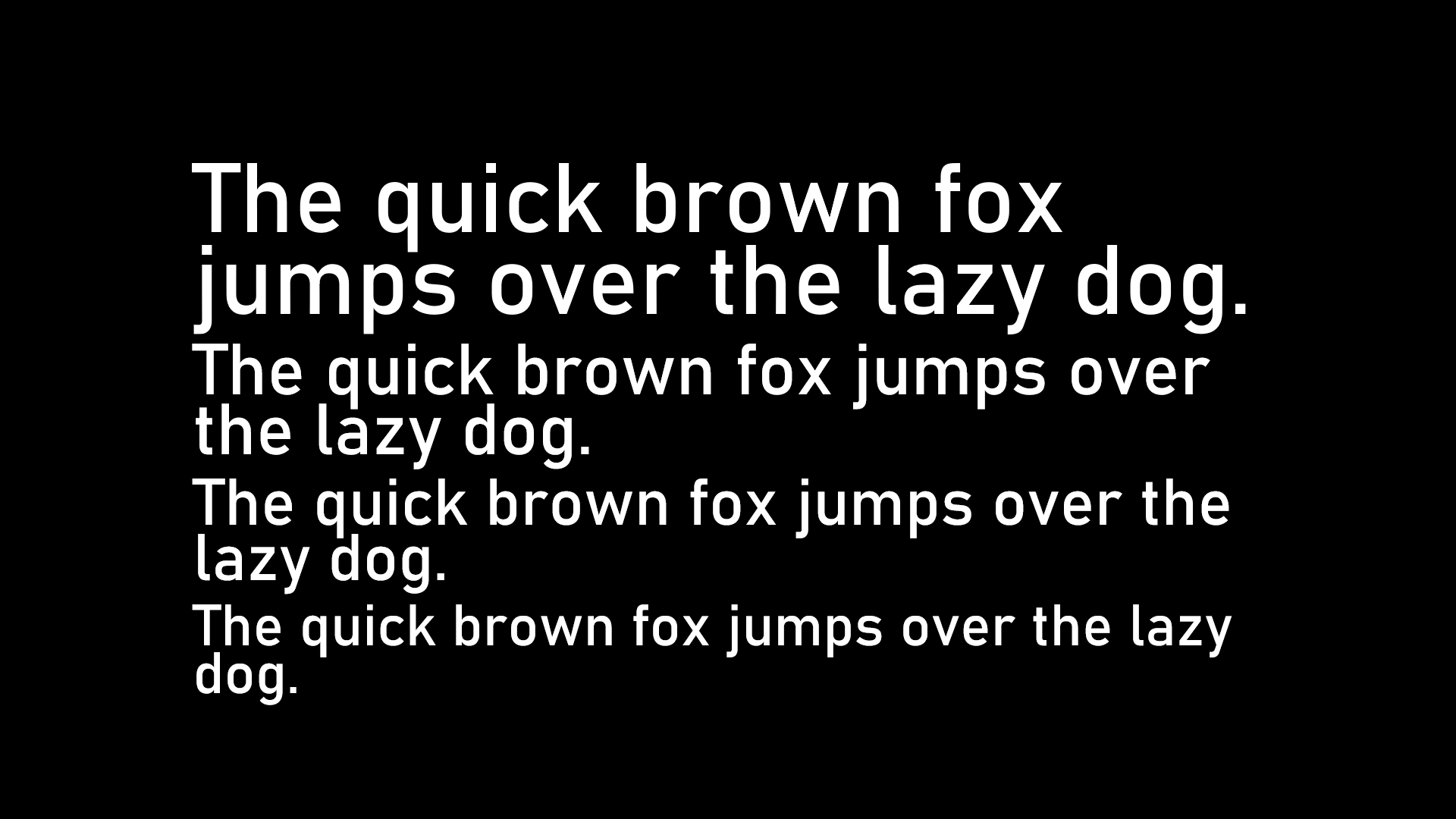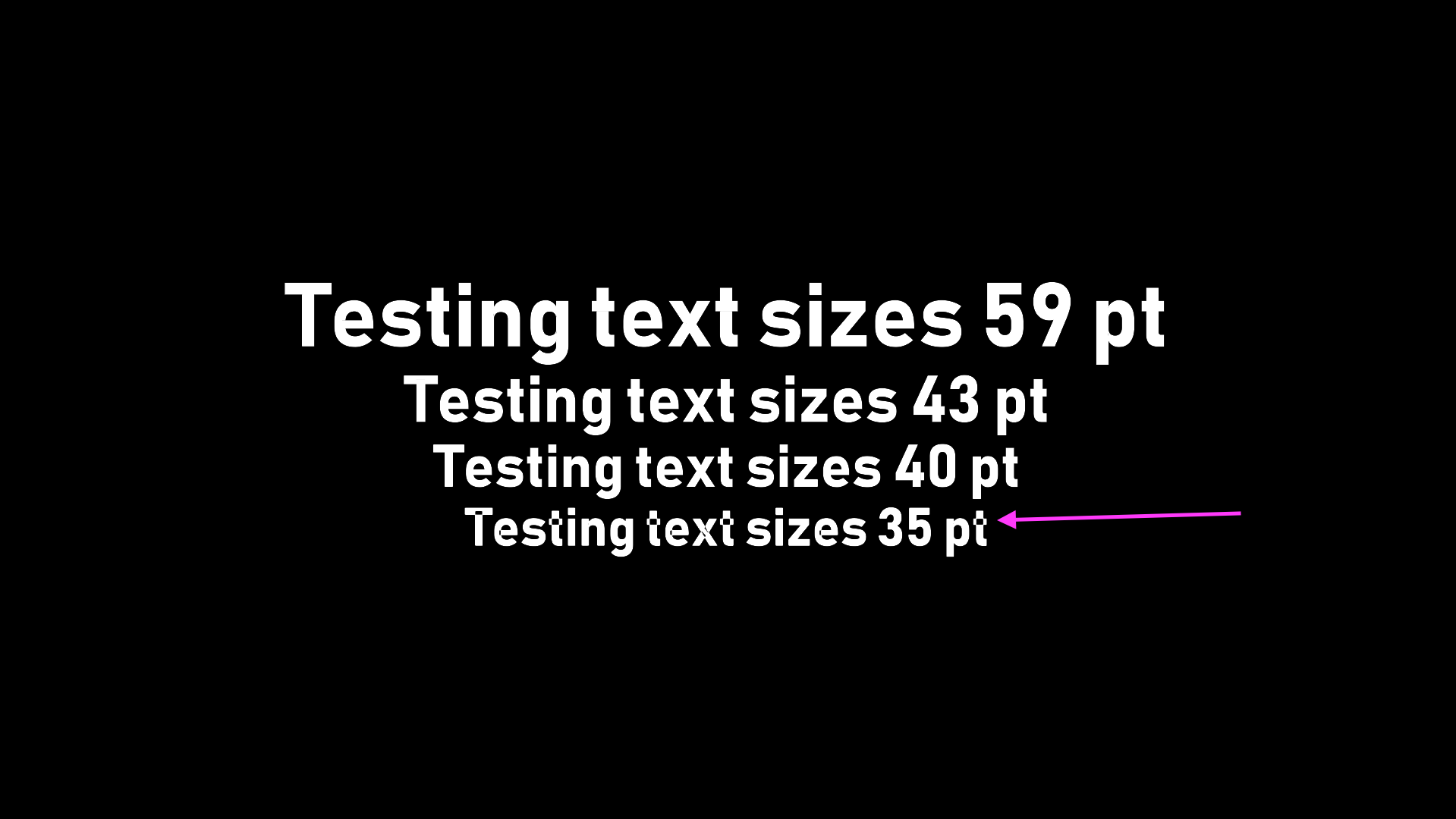
Anyone know why some fonts becomes distorted under 37pt and how to fix it?
When creating presentations in the PowerPoint web app certain fonts become distorted under 37 pt in present mode. It happens for Bahnschrift and our organization font roboto. Where the strokes of the letters overlap becomes cut out. For example where a "t" crosses will have a blank square in the middle.
This is occurring on both Mac and Windows computers, in many browser types. The issue doesn't happen on my desktop powerpoint app running macOS but does occur in the desktop app on windows.
Any ideas why this is happening and how to fix it?
Based on your description, this problem occurs in PowerPoint for Windows and PowerPoint for Web with specific fonts.
Is my understanding correct?
What version of PowerPoint did you use?
I tested in my PowerPoint 365 version number: 2301, I cannot reproduce this problem:
User's image